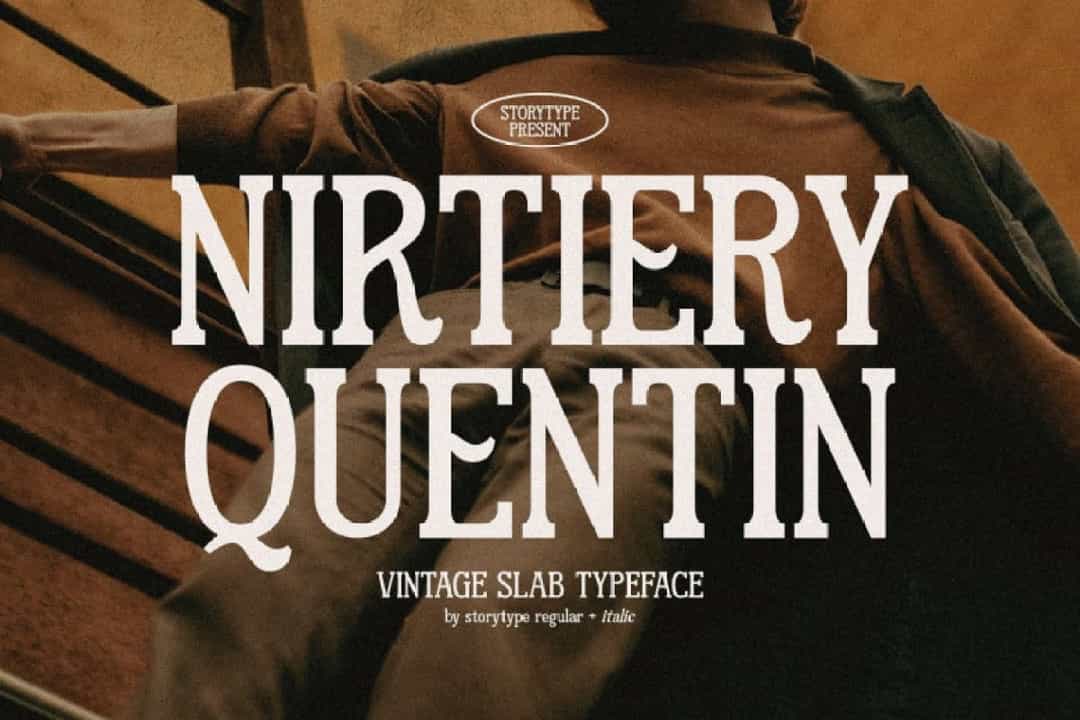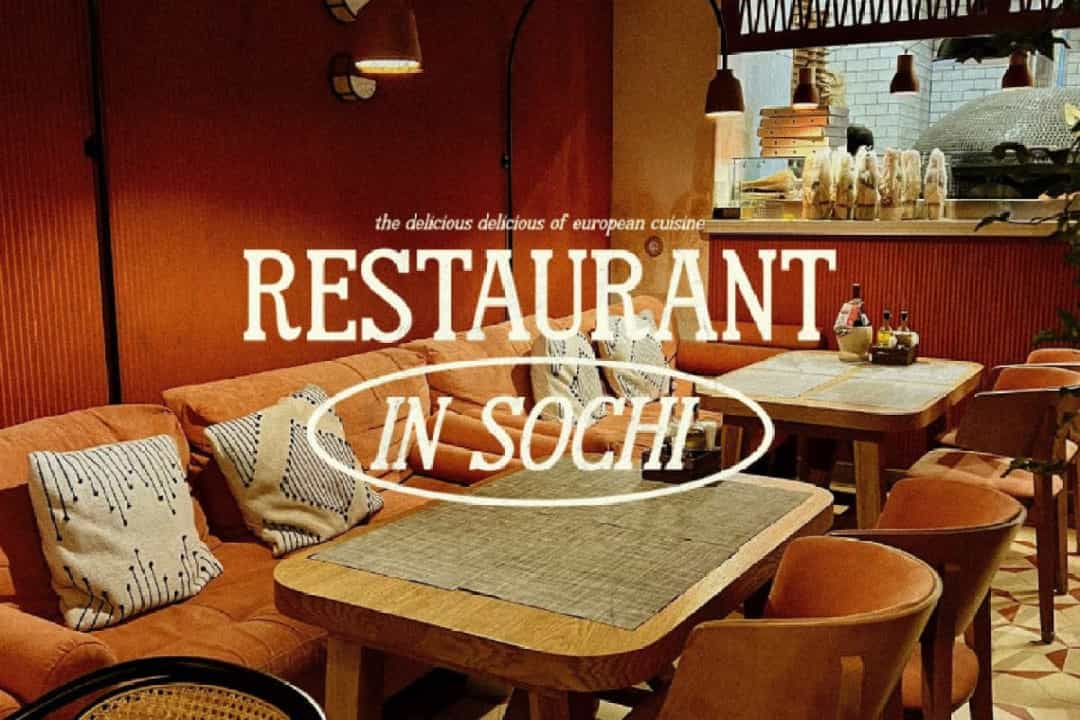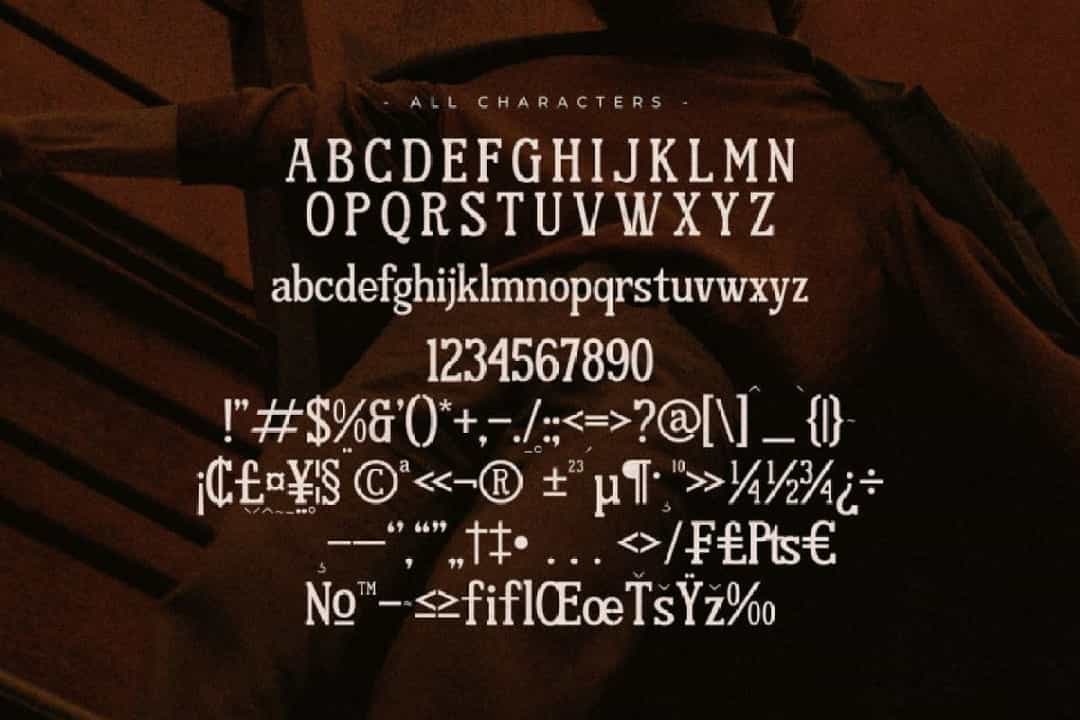
Nirtiery Quentin is an elegant yet modern slab serif typeface. This unique font can be used to create luxurious logos, movie or book styles, fashion label clothing designs, magazines articles and lettering projects, quotes or much more.